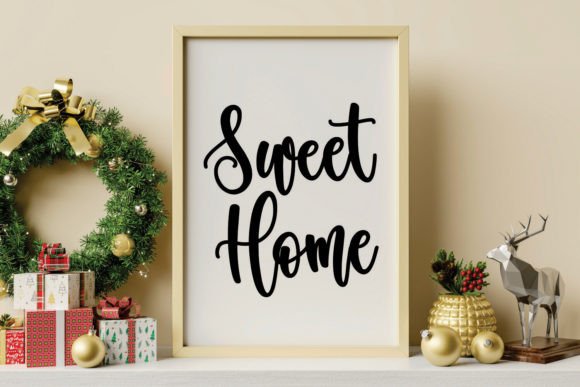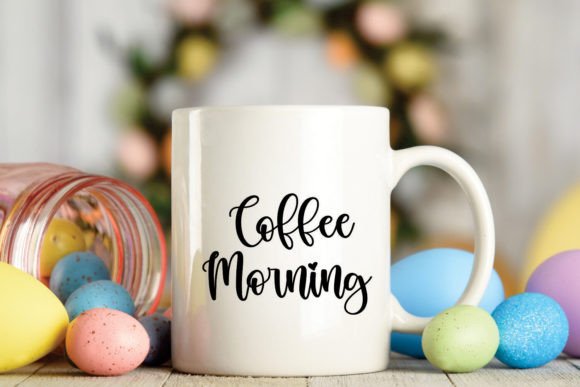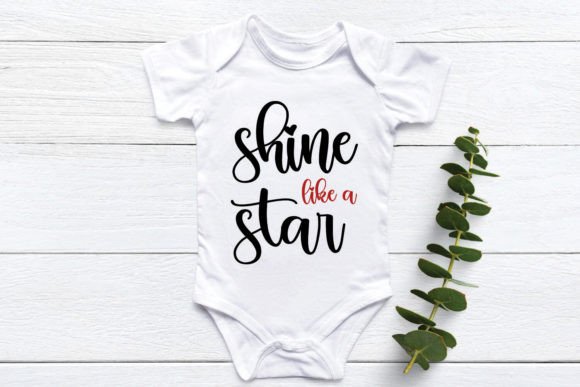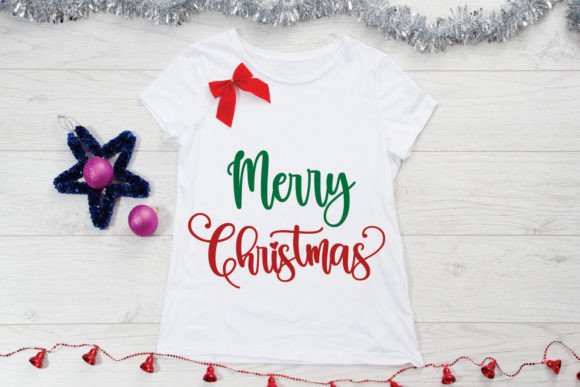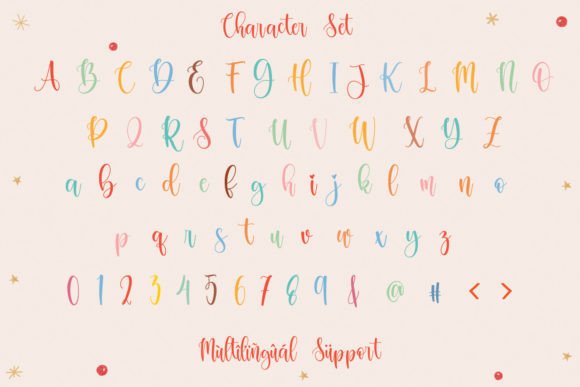
Christmas Day Font
Christmas Day font is a delightful and charming script handwritten that encapsulates the essence of a cute handwritten design, perfect for celebrating a wide range of occasions and themes throughout the year. This whimsical font is particularly well-suited for adding a touch of festive magic to Christmas, winter, spring, autumn, holiday, New Year, crafting, and embroidery projects.